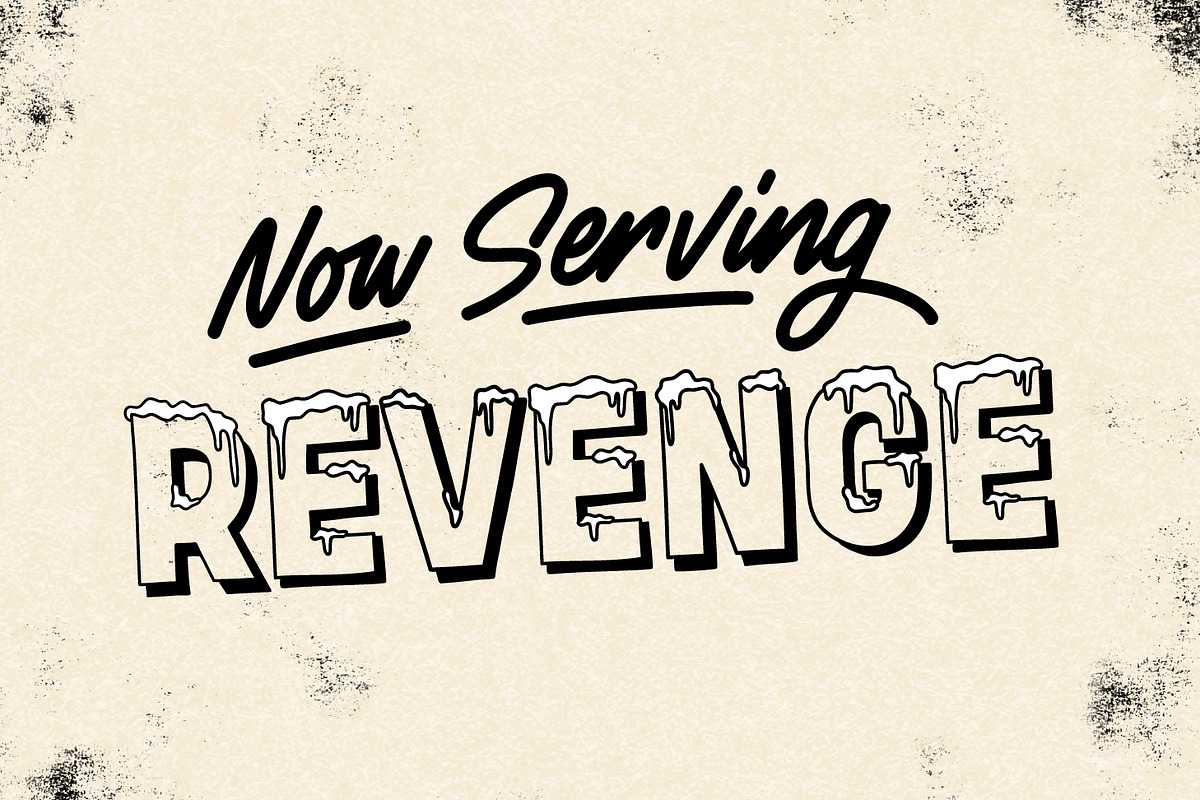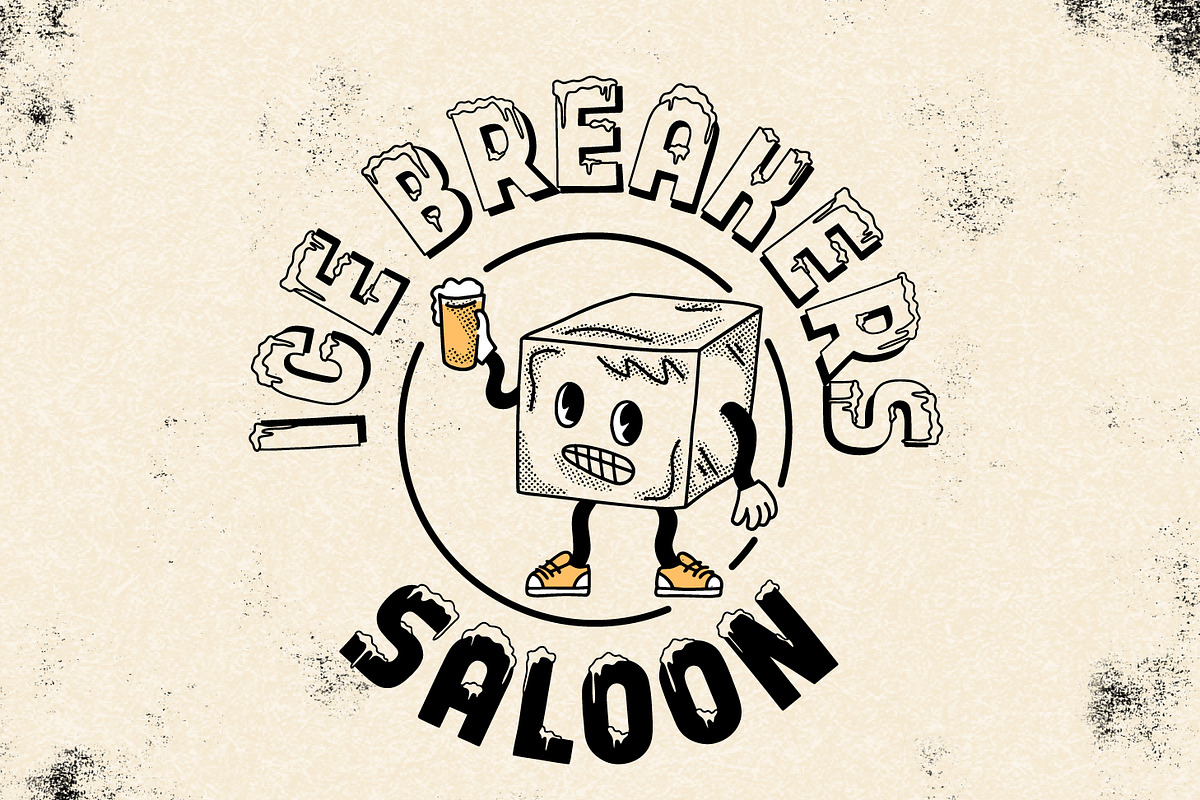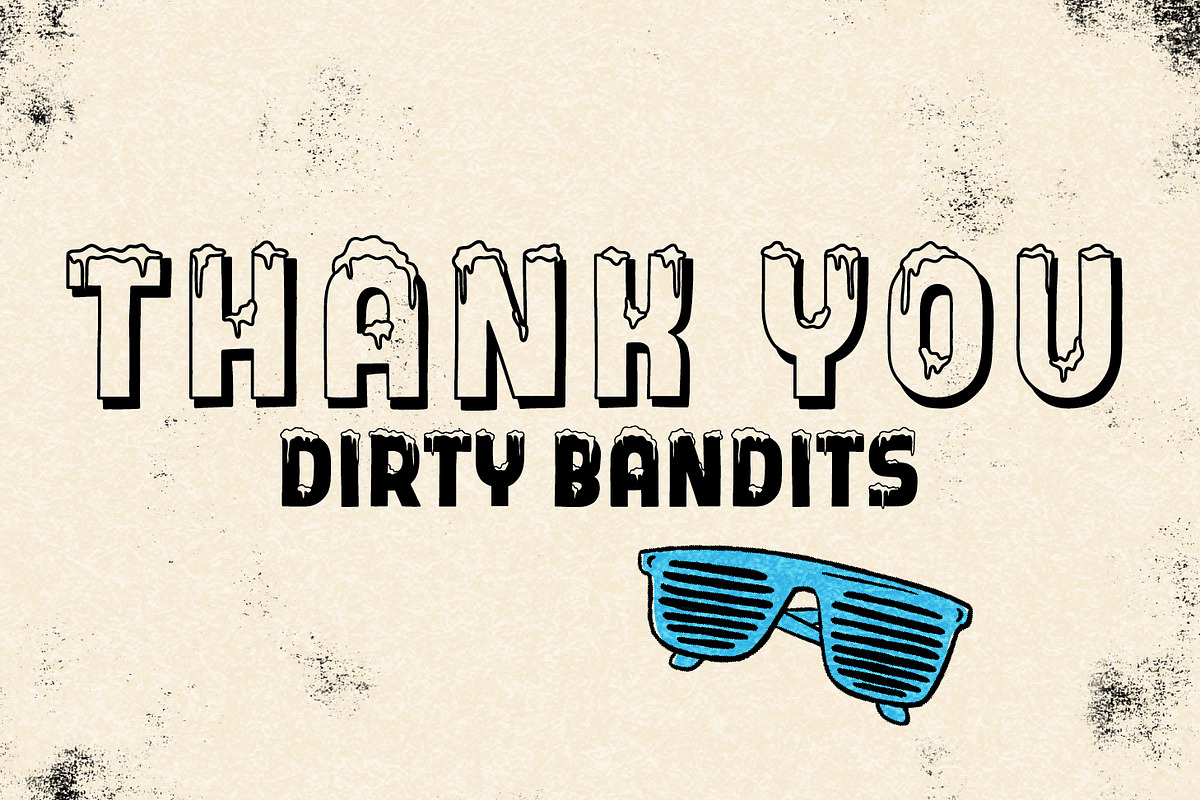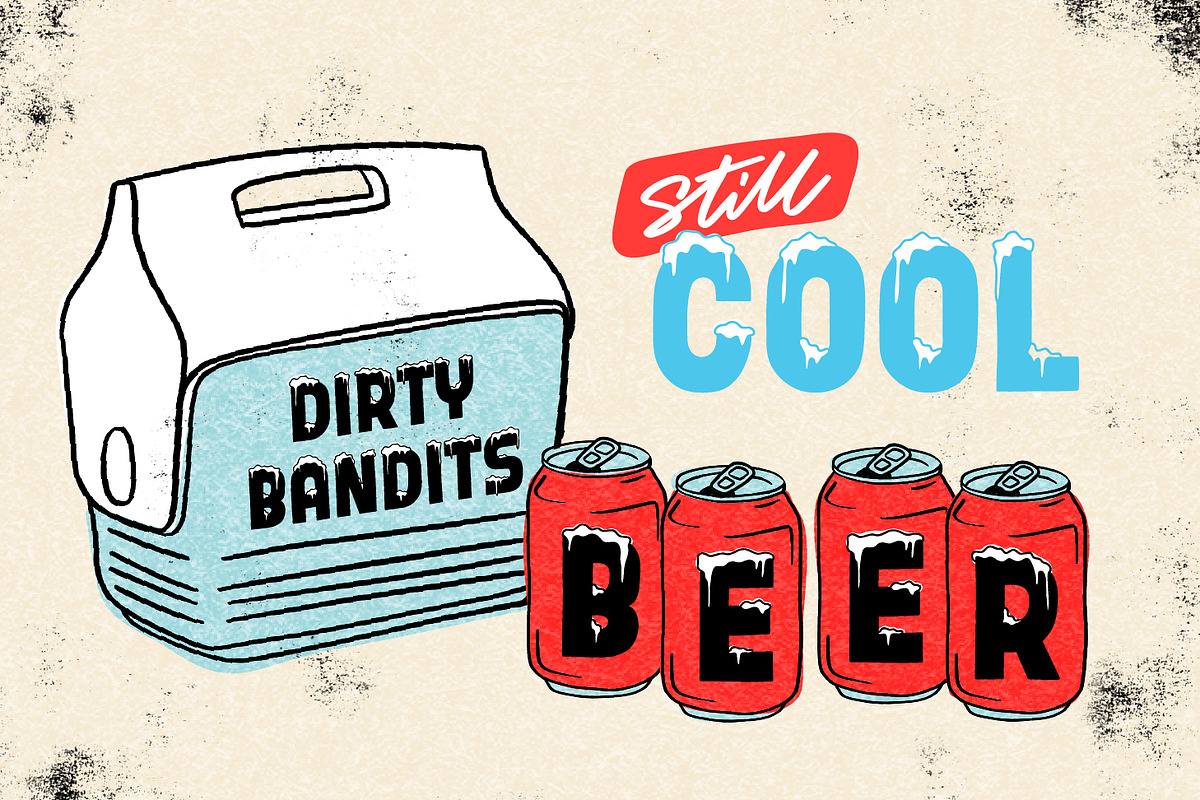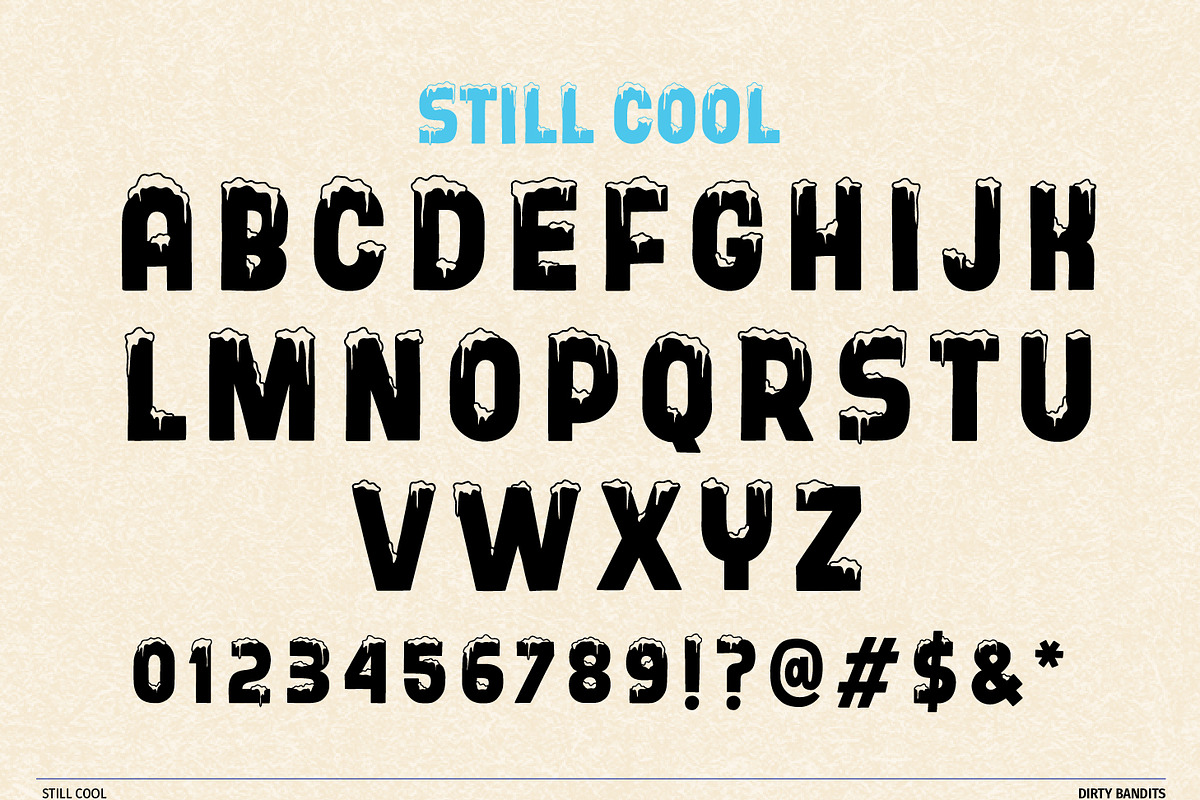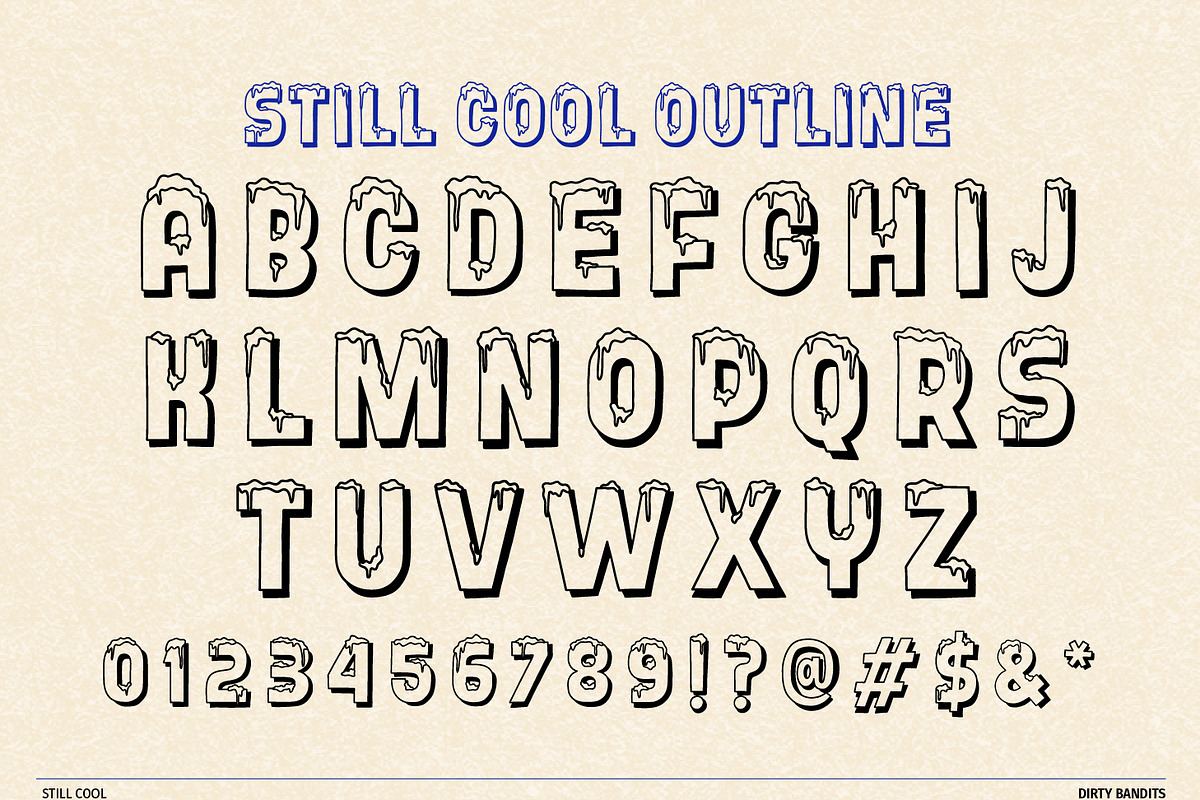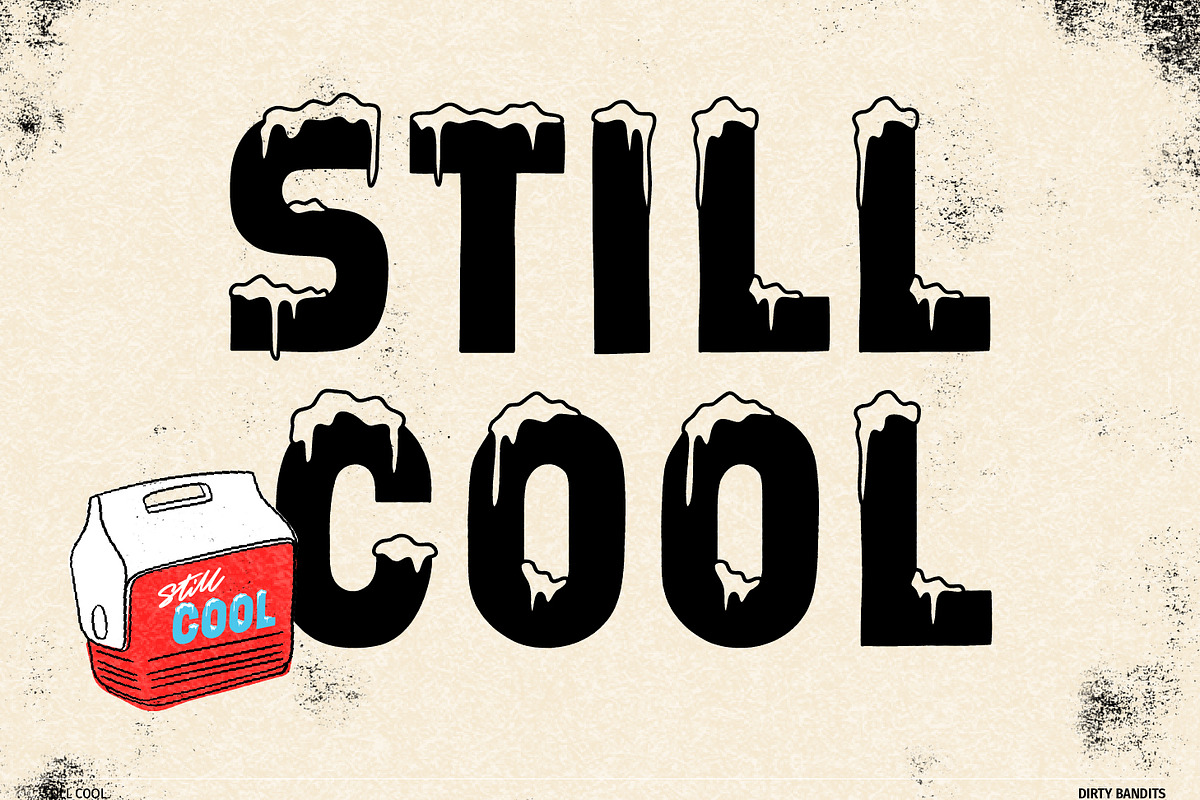
Still Cool
Still Cool is an all-caps display family rooted in the authentic charm of hand-painted signage, drawn to deliver a distinct human touch. Built for restaurants, food packaging, streetwear, retail packaging, and environmental graphics, the font features a friendly, tall, bold weight structure available in two versatile variations: a monochromatic Solid style, and an Outline version with an integrated drop shadow.